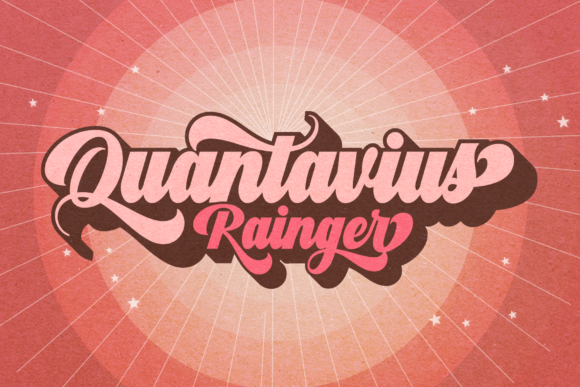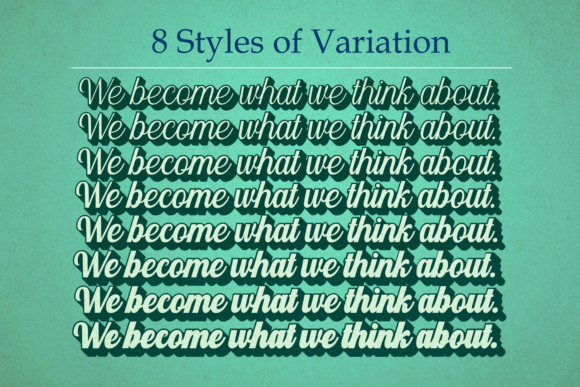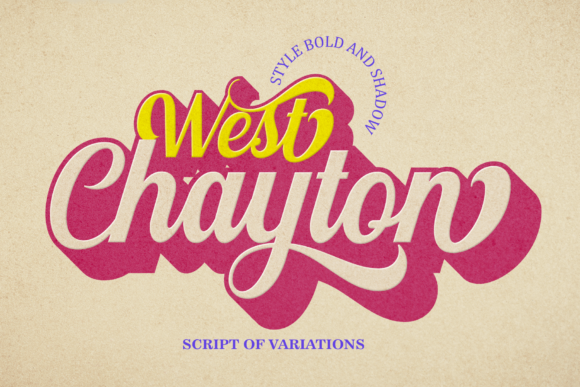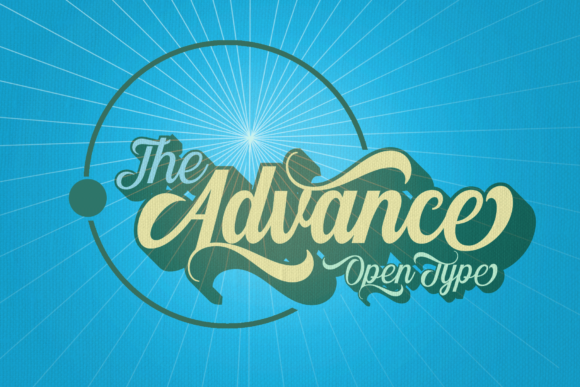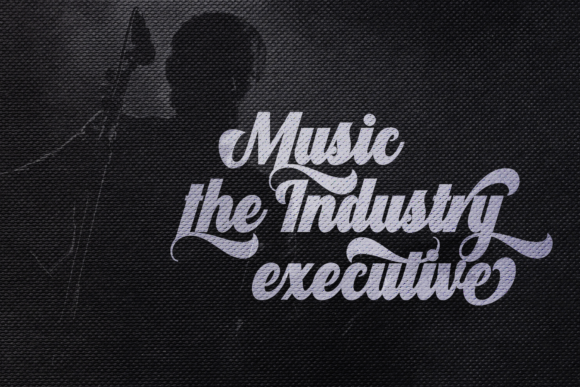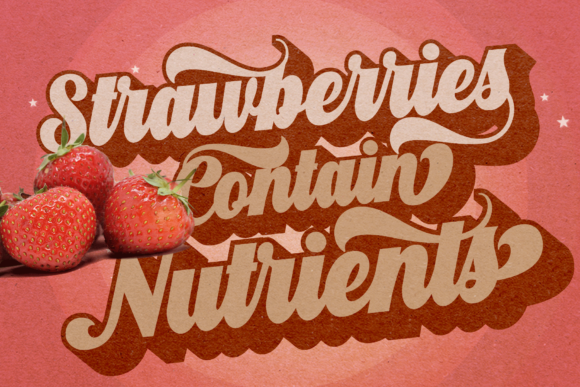
Bentley Font: A Playful and Nostalgic Typeface for Your Design Needs
Are you looking for a font that can add a touch of vintage charm to your design projects? Look no further than the Bentley Font! This handwritten typeface is designed to evoke a sense of playfully nostalgic feel, making it perfect for designers and crafters who want to add a retro touch to their work.
The Characteristics of Bentley Font
Bentley Font is a carefully crafted handwritten font that boasts a unique and distinctive aesthetic. Its letters are designed to resemble those written with a pen or pencil, giving it a personal and organic feel. The font features subtle imperfections and variations in line width, making it look like it was written by hand. This level of detail and authenticity is what sets Bentley Font apart from other fonts and makes it a great choice for designers who want to add a touch of personality to their work.
The Benefits of Using Bentley Font
So, why should you choose Bentley Font for your design projects? Here are just a few benefits of using this amazing font:
- Unique and distinctive aesthetic: Bentley Font has a one-of-a-kind look that will set your designs apart from the crowd.
- Vintage charm: The font’s retro feel is perfect for designers who want to add a touch of nostalgia to their work.
- Handwritten feel: The font’s handwritten style gives it a personal and organic feel that is hard to replicate with digital fonts.
- Versatile: Bentley Font can be used for a wide range of design projects, from branding and advertising to packaging and signage.
How to Use Bentley Font in Your Designs
Using Bentley Font in your designs is easy! Here are a few tips to get you started:
- Pair it with modern fonts: Combine Bentley Font with modern fonts to create a striking contrast between old and new.
- Use it for headlines: The font’s bold and playful style makes it perfect for headlines and titles.
- Add it to your branding: Use Bentley Font to add a touch of personality to your brand’s logo and marketing materials.
- Experiment with colors: Try pairing Bentley Font with different colors to create a unique and eye-catching design.
Design Ideas to Get You Started
Still not sure how to use Bentley Font in your designs? Here are a few ideas to get you started:
- Retro-style posters: Create eye-catching posters with a retro vibe using Bentley Font and bold colors.
- Vintage-inspired packaging: Add a touch of nostalgia to your product packaging with Bentley Font and classic design elements.
- Handwritten quotes: Use Bentley Font to create beautiful handwritten quotes and phrases for social media or marketing materials.
- Logo design: Use Bentley Font as a starting point for creating a unique and memorable logo for your brand.
In conclusion, Bentley Font is a unique and versatile typeface that can add a touch of vintage charm to any design project. Its handwritten style and nostalgic feel make it perfect for designers and crafters who want to create something truly special. So why not give it a try and see how Bentley Font can elevate your designs?
With its bold and playful style, Bentley Font is sure to become a favorite in your design arsenal. So go ahead, get creative, and add a touch of retro magic to your designs with Bentley Font!